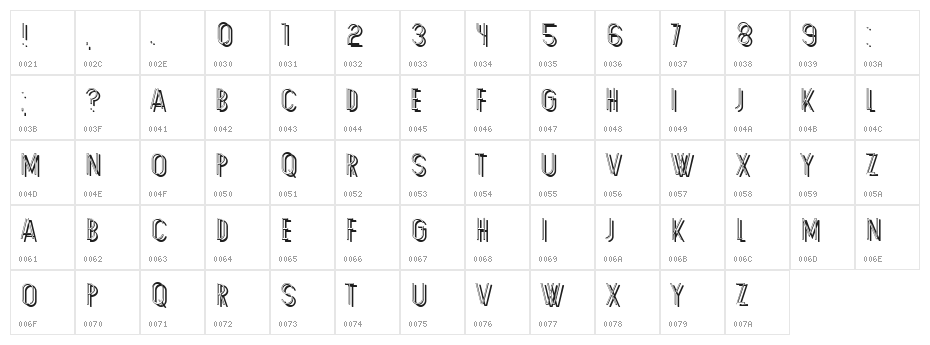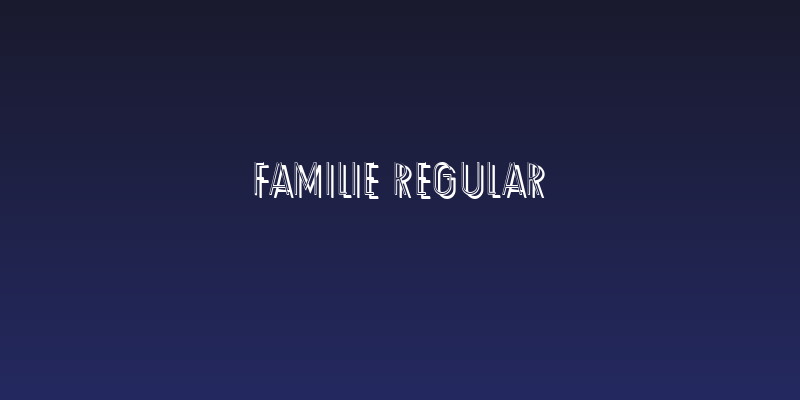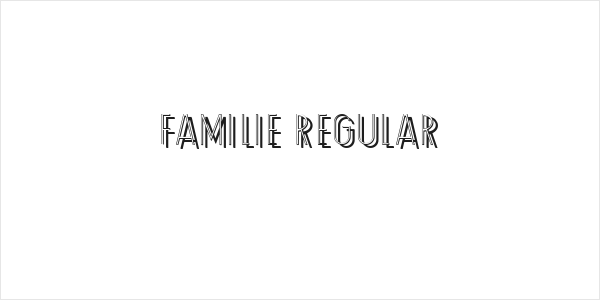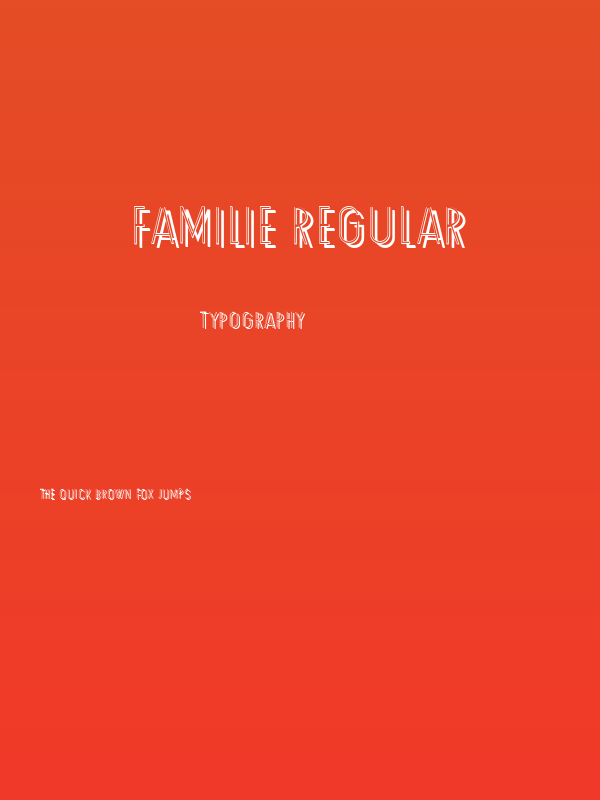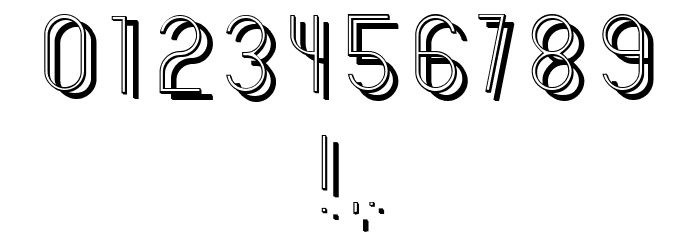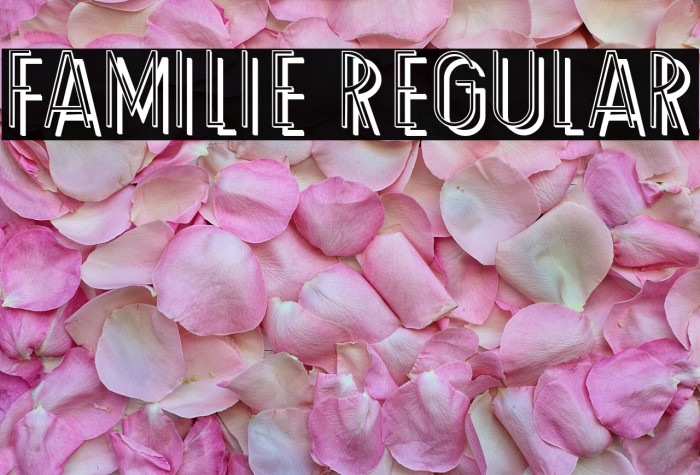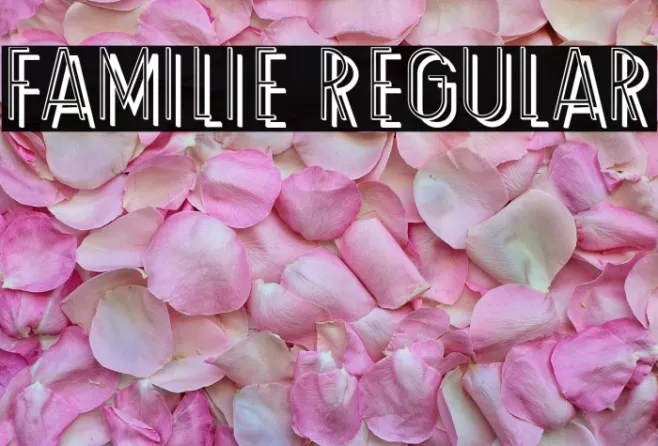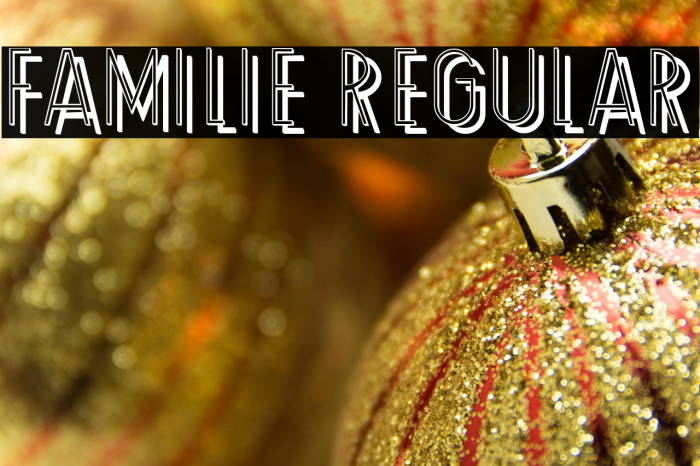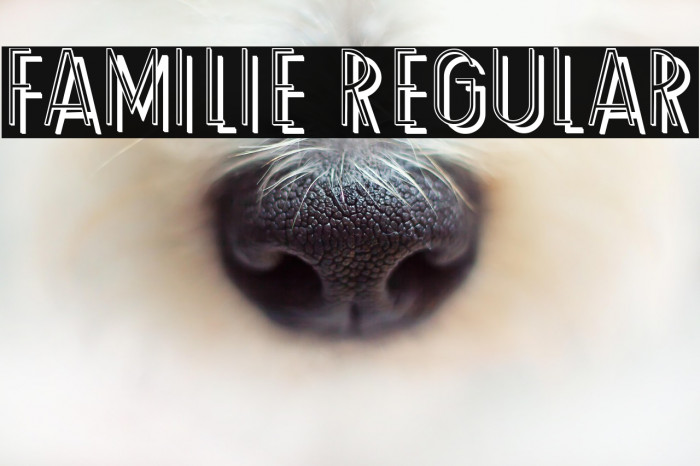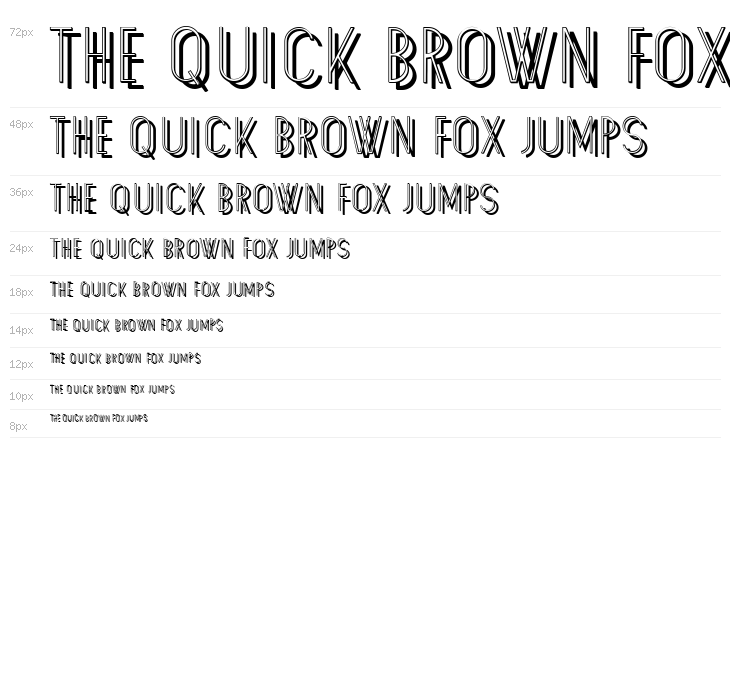
Familie Regular Font
Familie Regular Description
This font features a unique and modern design with a distinct outline style. The characters are bold and have a three-dimensional effect, giving them a striking appearance. The uppercase and lowercase letters maintain a consistent style, with clean lines and geometric shapes. Numbers and special characters are also included, matching the overall aesthetic. The font's design is both eye-catching and versatile, suitable for various creative applications.
| Proposed Projects | Ideal for branding, posters, headlines, and any design project that requires a bold and modern typeface. |